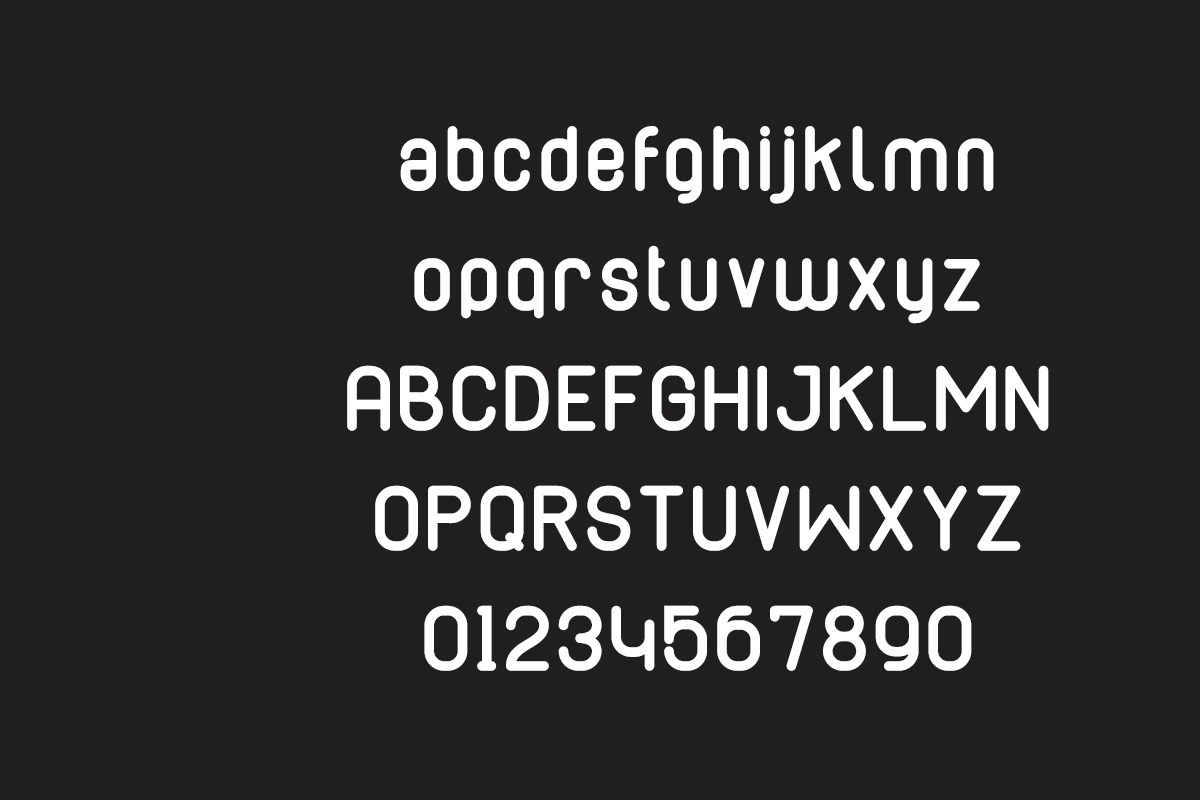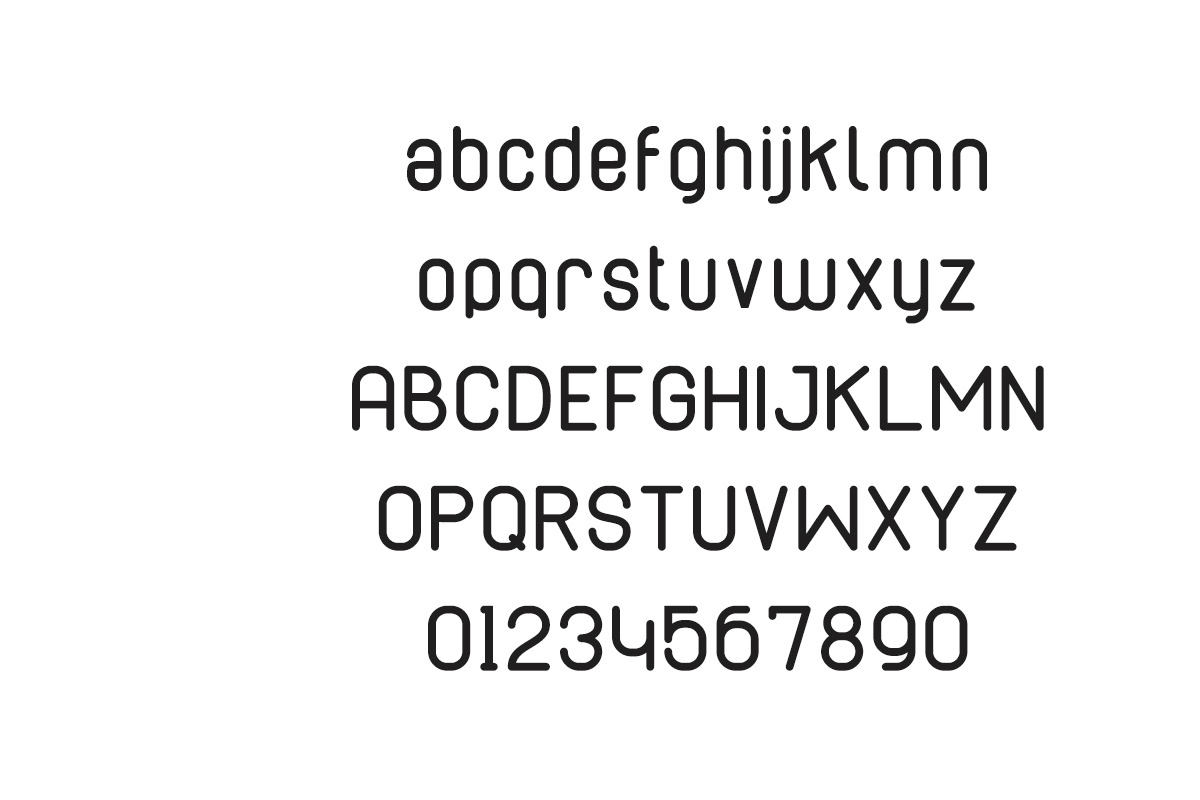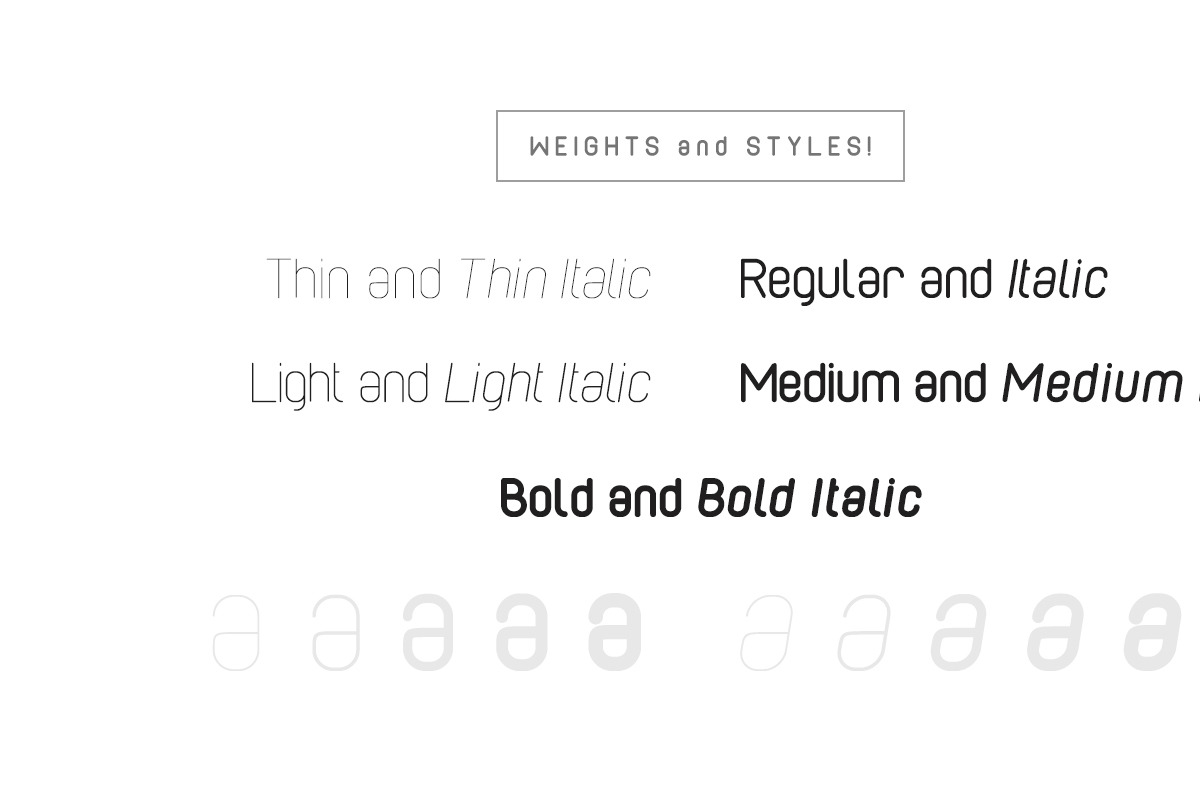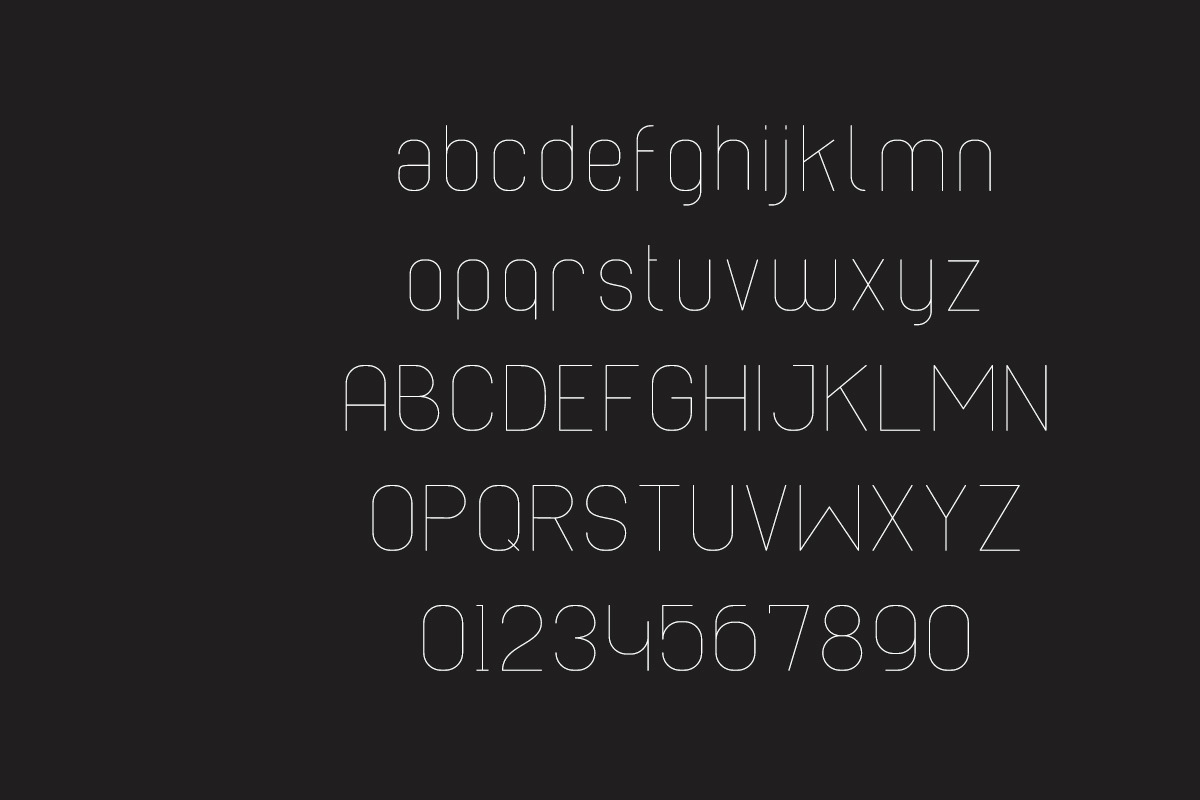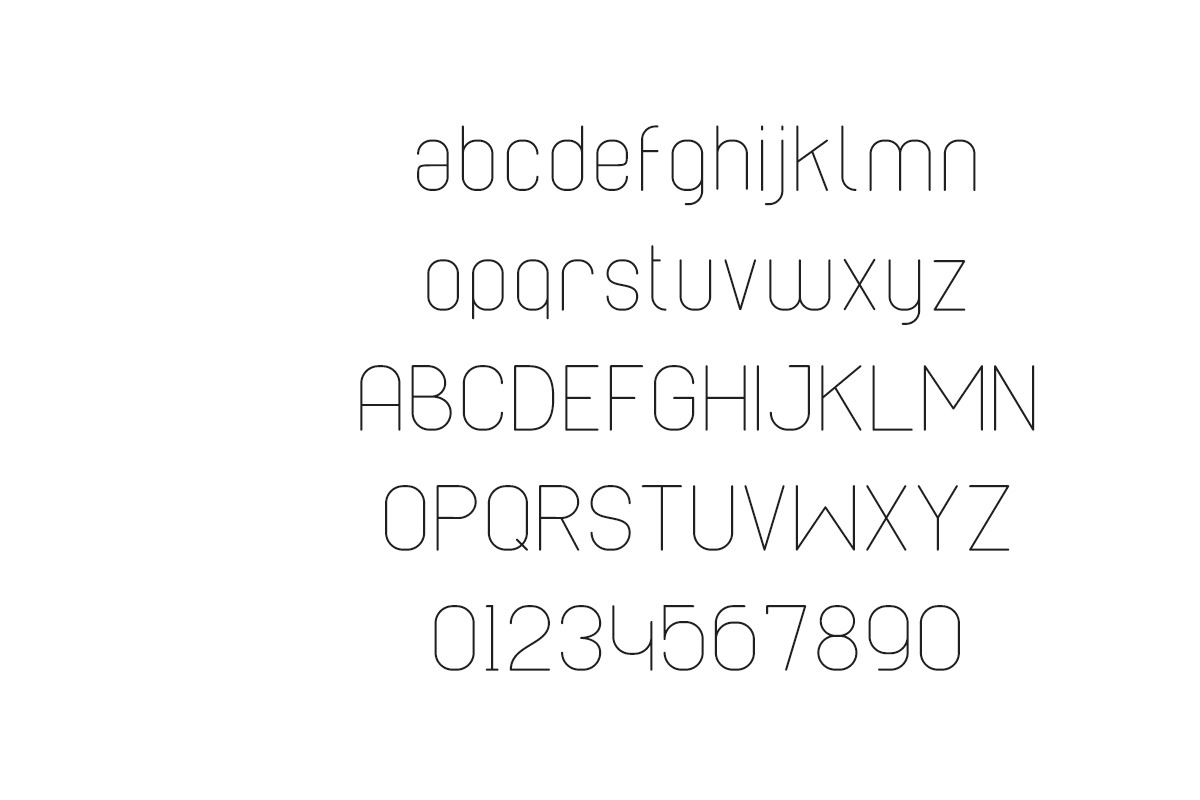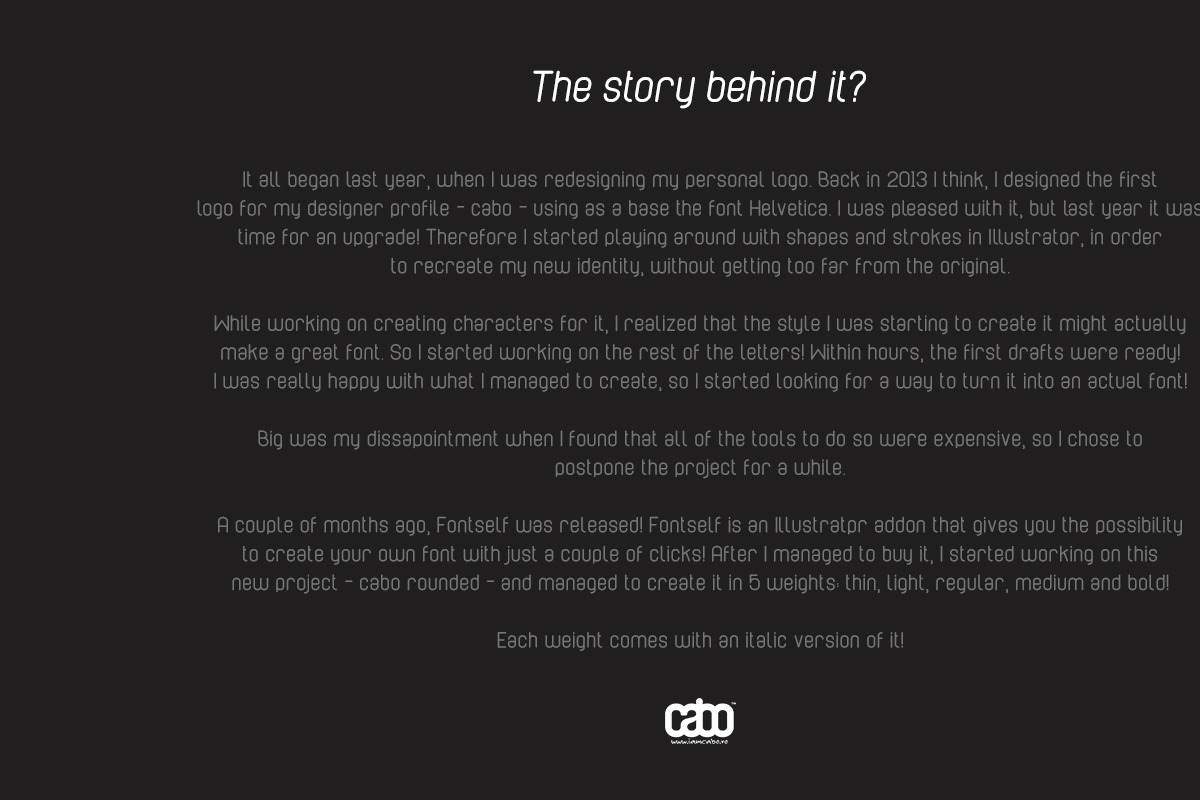
Cabo Rounded Font Family
Cabo Rounded Font Family by Bogdan Casota is a font selected for branding, posters, packaging, typography.
- Each weight comes with an italic version of it!
- While working on creating characters for it, I realized that the style I was starting to create it might actually make a great font.
Why Cabo Rounded Font Family is worth a look
Cabo Rounded Font Family by Bogdan Casota fits naturally into Branding, posters, packaging, typography.